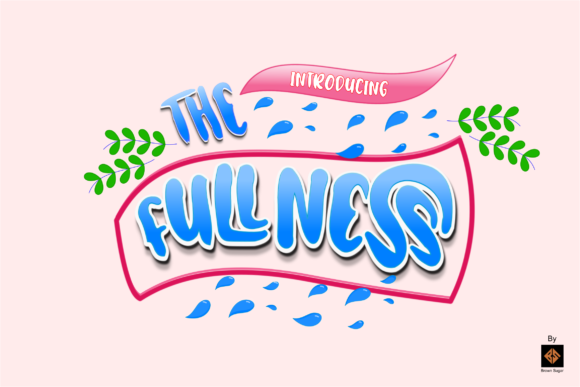
The Fullness Font
The fullness is a fun, jolly, and incredibly charming display font. It embodies playfulness and authenticity and is the perfect choice for any children’s activity or school project.